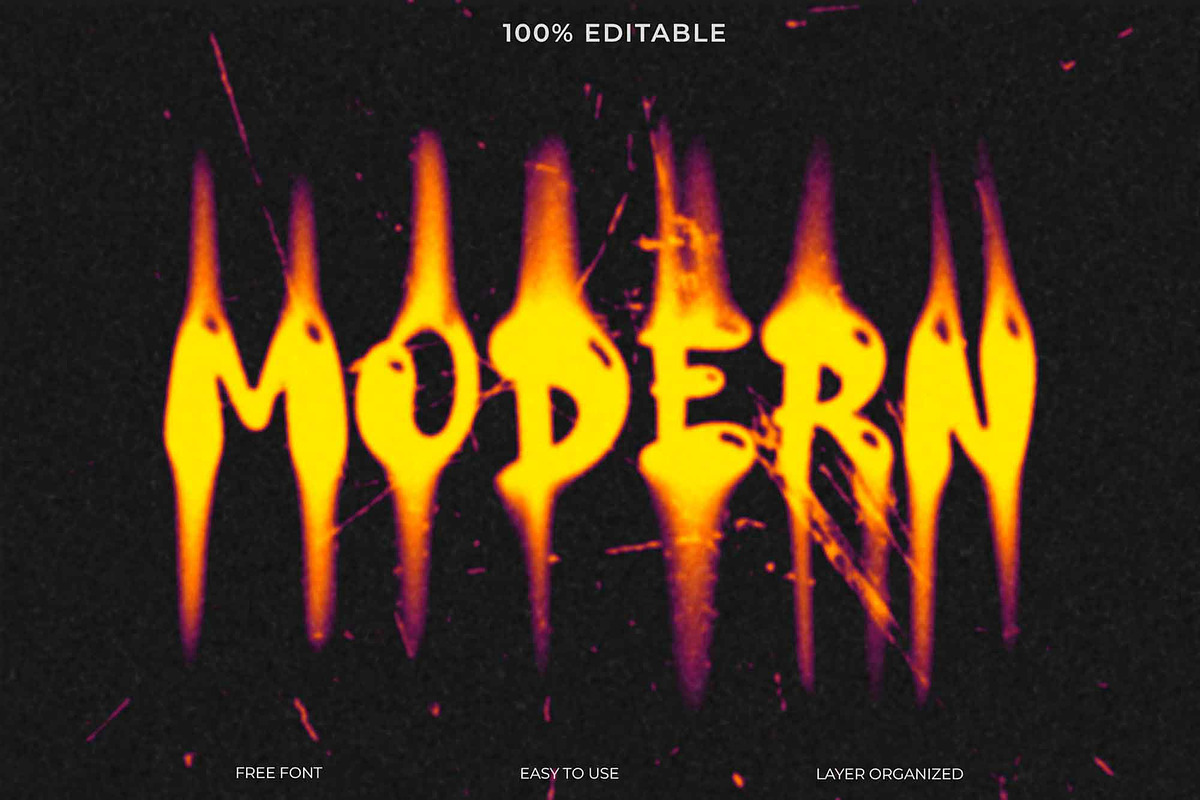
This Modern Font Burns With Fiery In
Grab attention with this bold and edgy display font. Its fiery, distorted style is perfect for projects needing a grunge or industrial look.